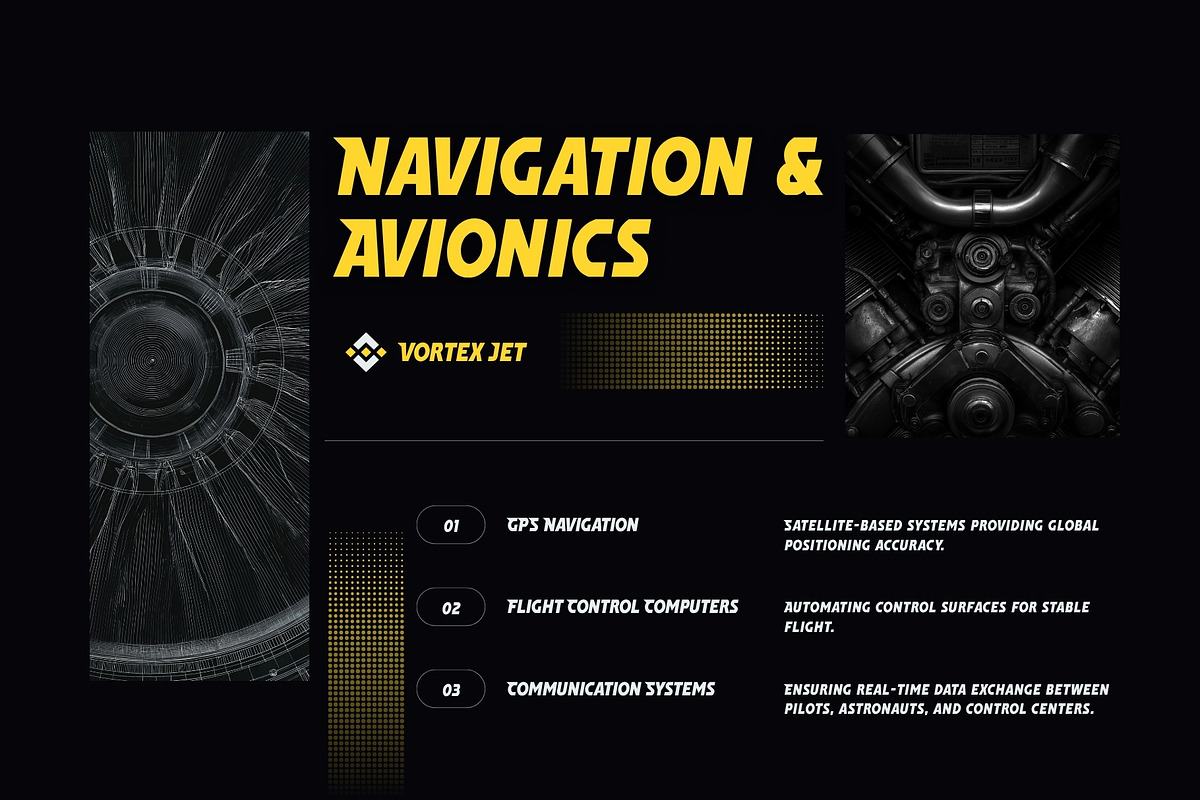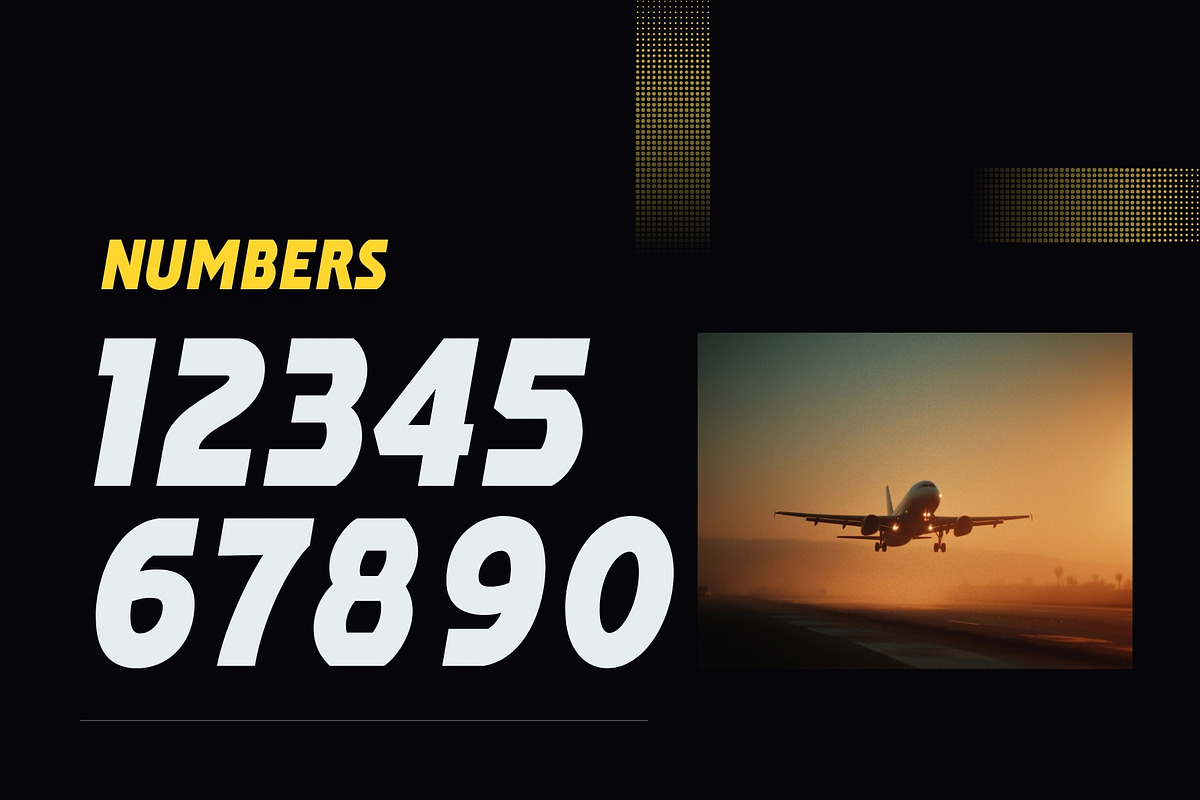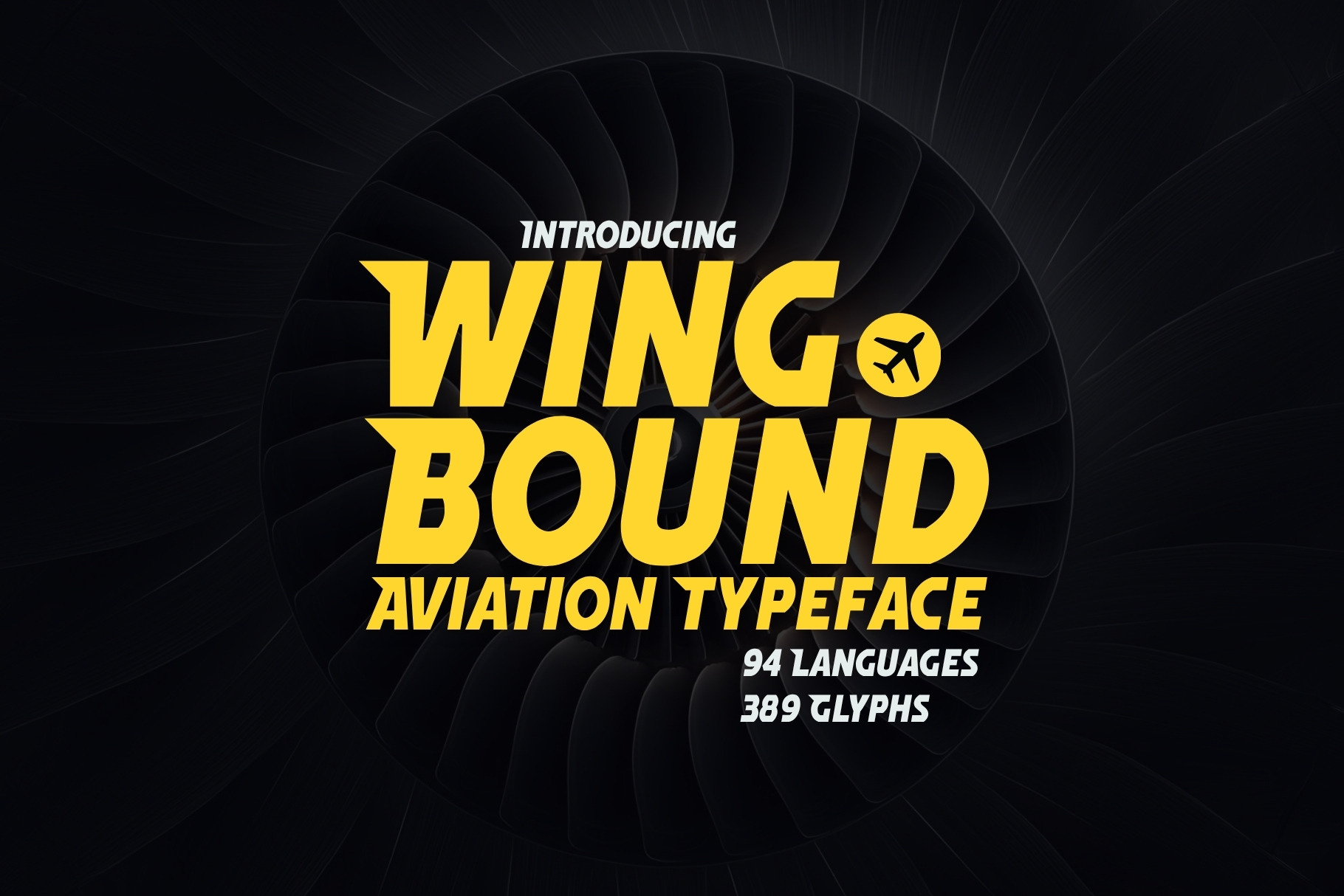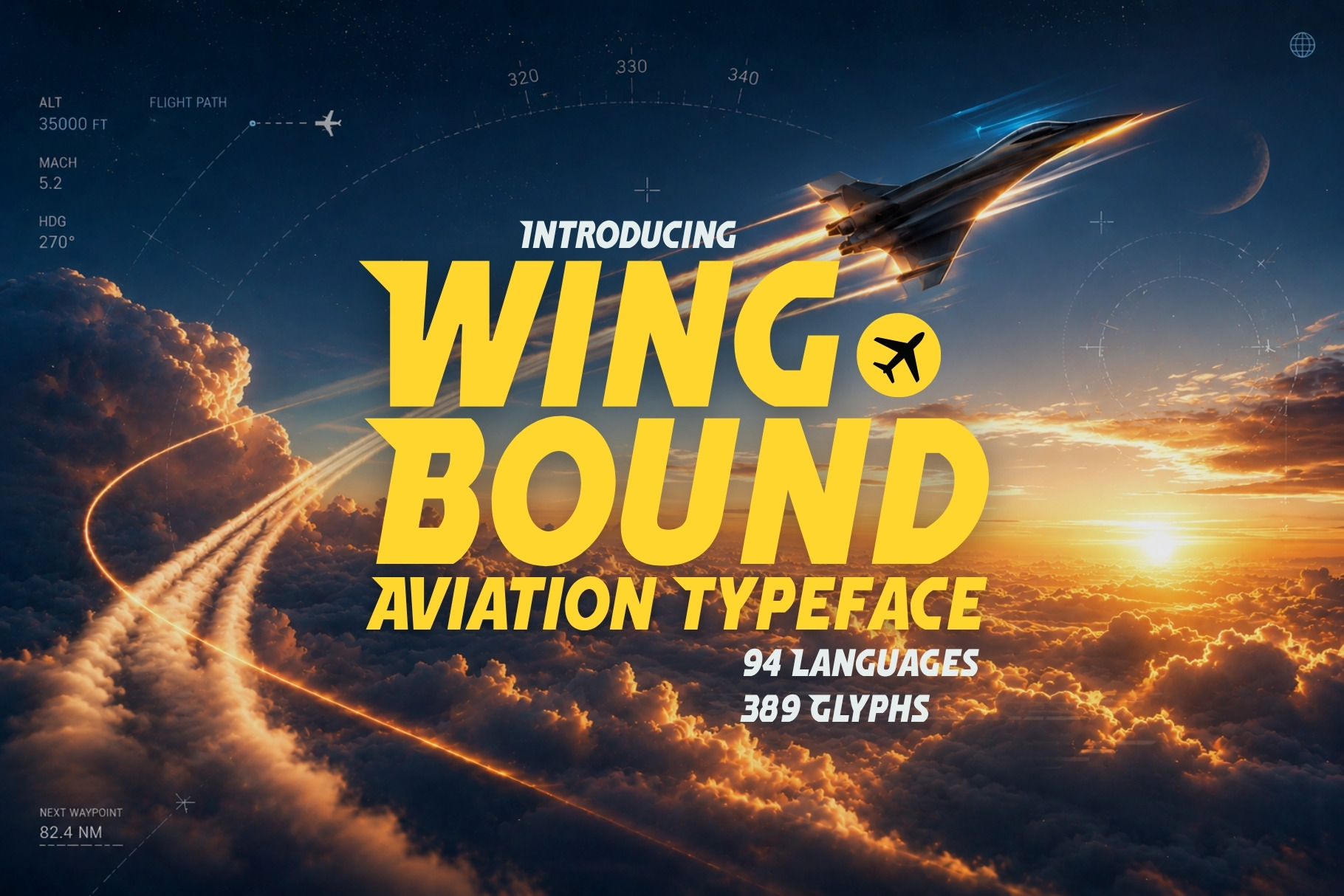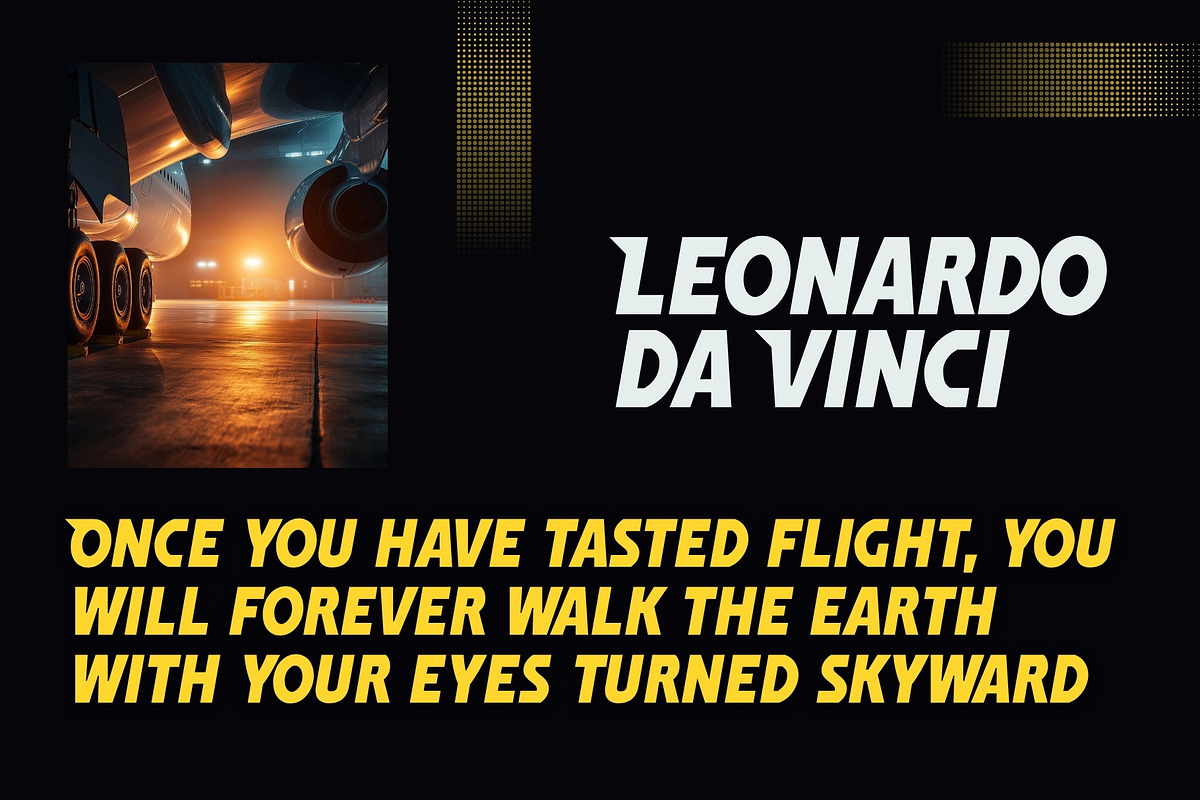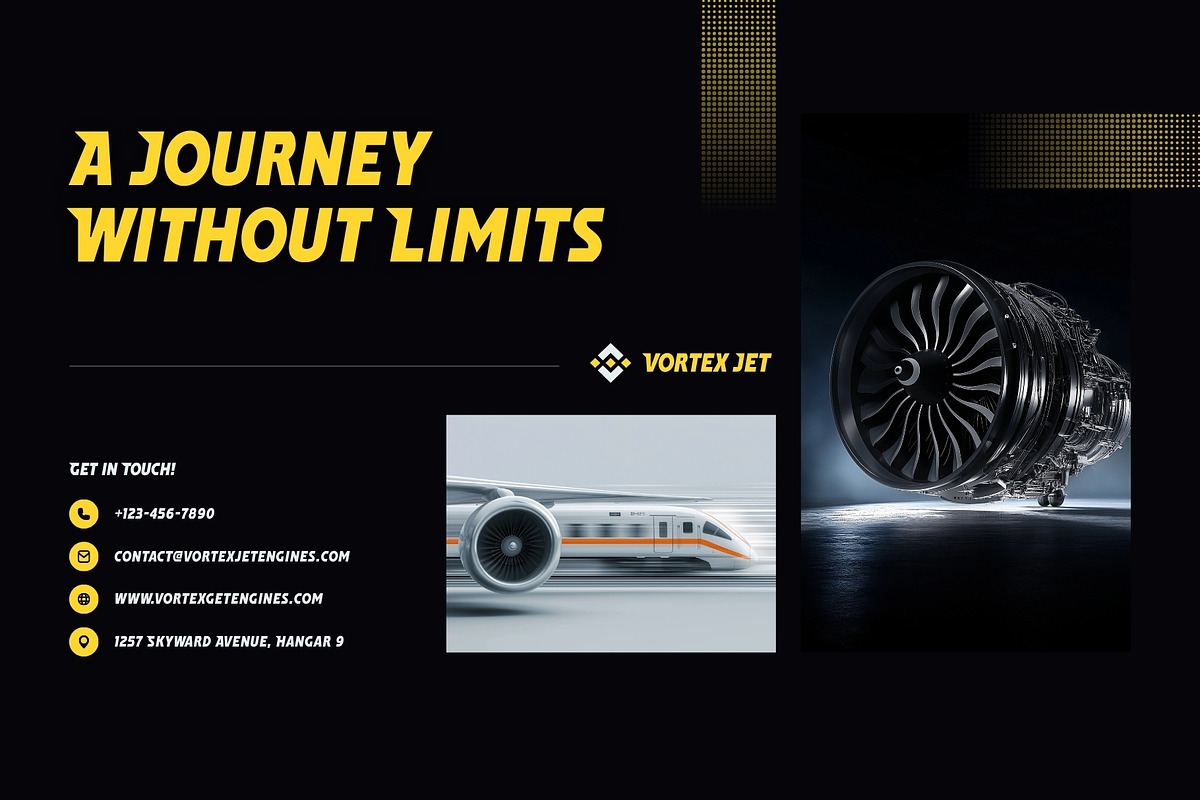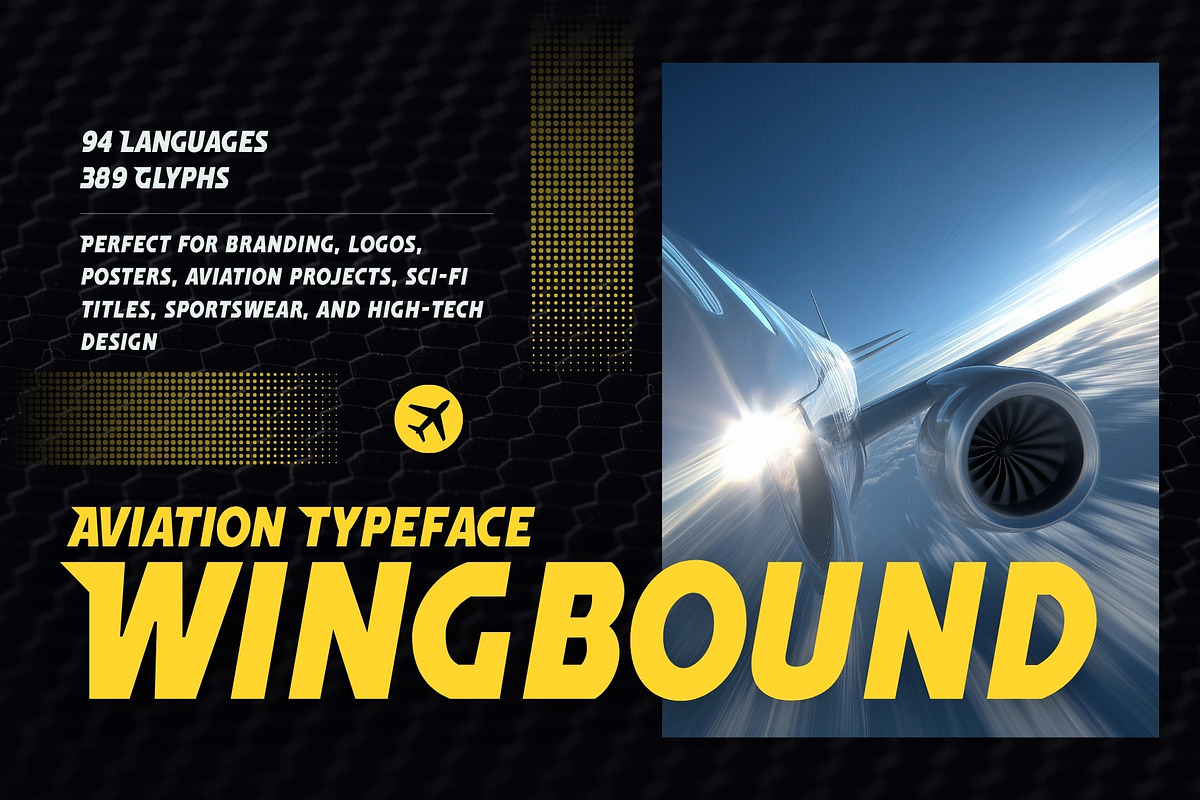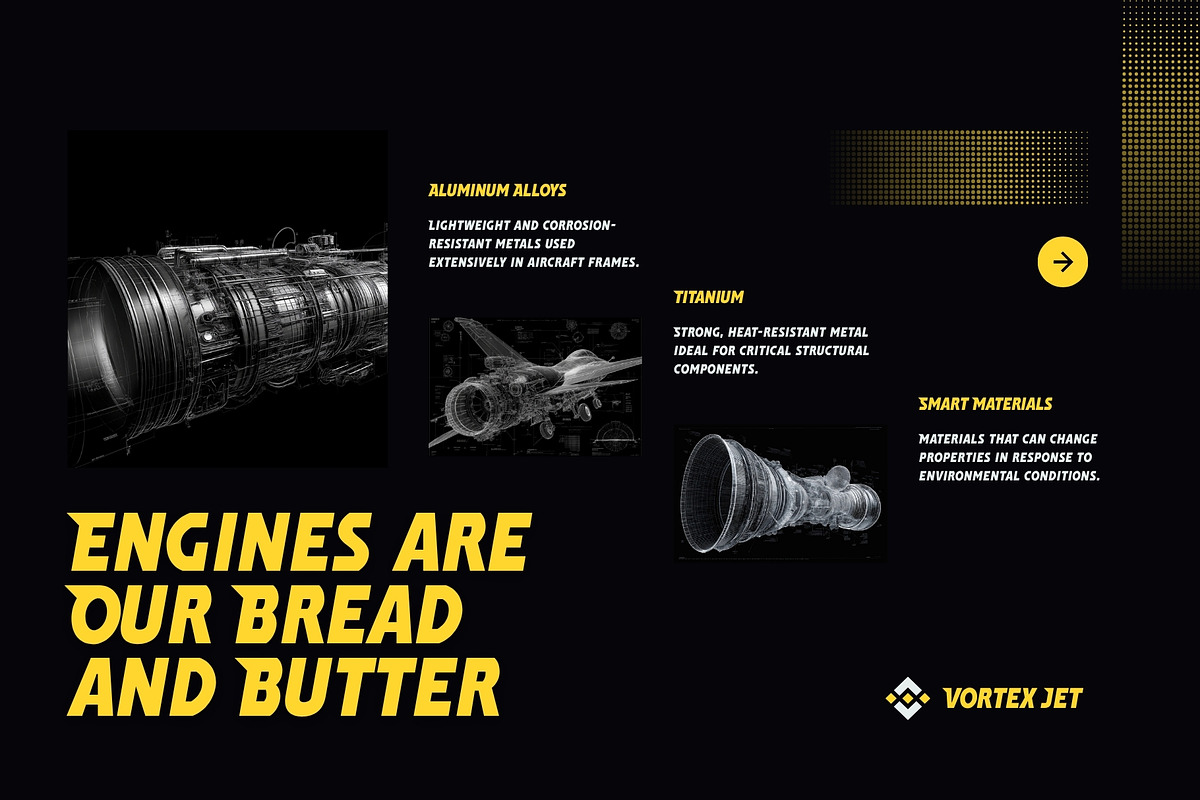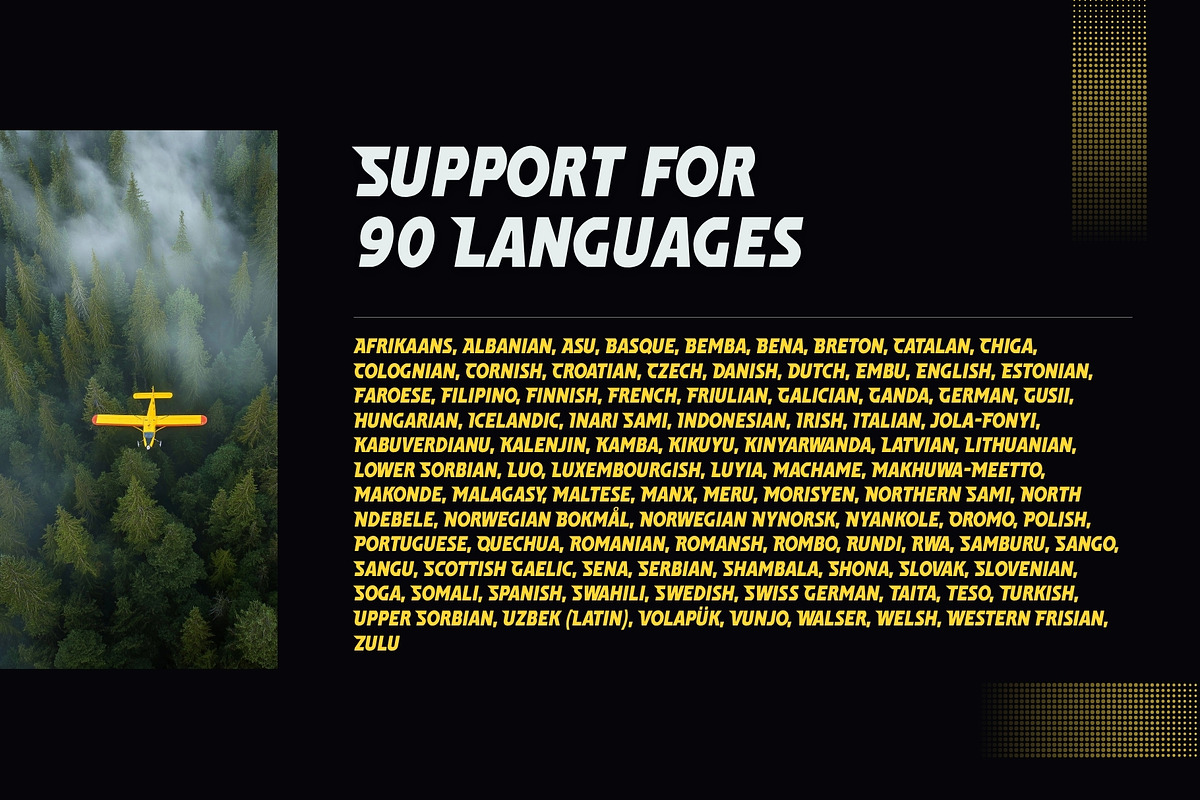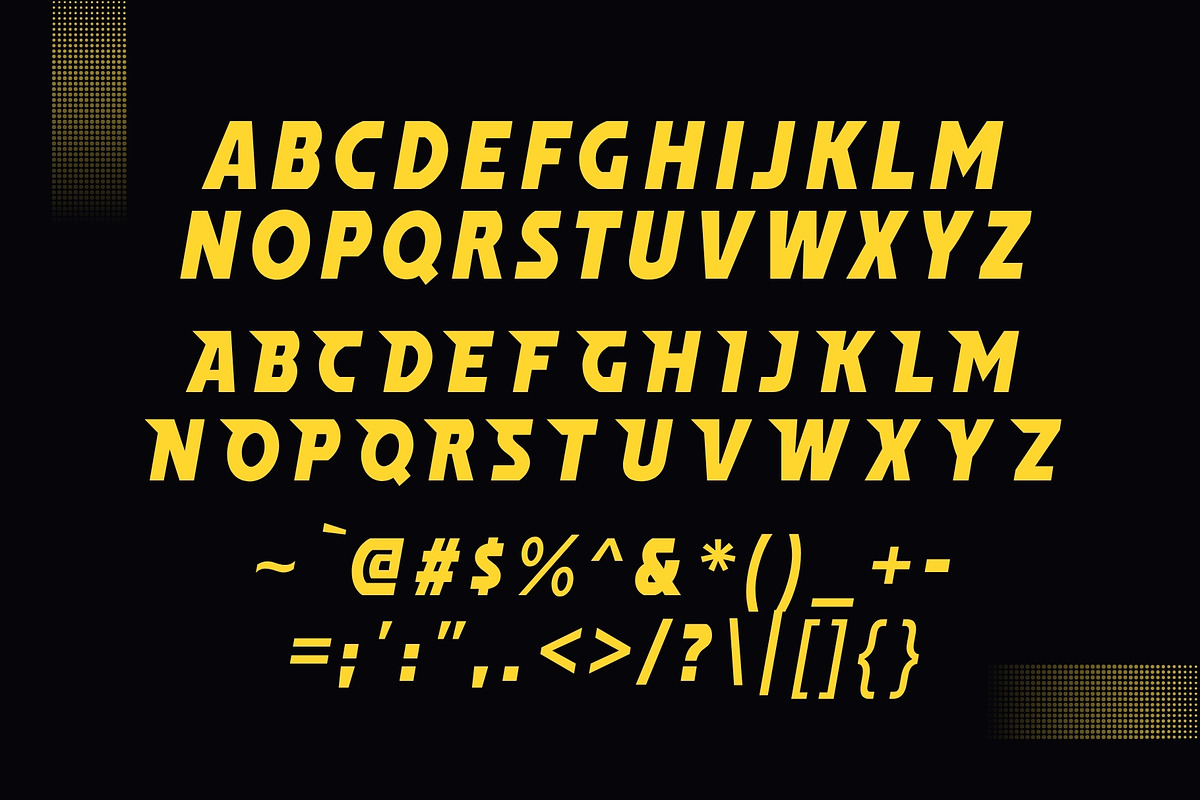
Wingbound - Aviation Typeface
Take your designs to new heights with Wingbound, a bold aviation-inspired all-caps display typeface that fuses precision engineering with aerodynamic style. Each letter is meticulously crafted to evoke the sleek motion of flight — featuring a subtle wingtip triangle on the left side that gives every word a sense of forward motion and unstoppable momentum.
Wingbound comes equipped with 389 glyphs and supports 94 languages, ensuring your message soars across borders with confidence and clarity. When typed in all caps, Wingbound unlocks its signature “speed mode” variation, transforming every letter into a visual symphony of motion, direction, and aerodynamic grace.
Perfect for branding, logos, posters, aviation projects, sci-fi titles, sportswear, and high-tech design, Wingbound embodies the essence of speed, innovation, and exploration. From cockpit dashboards to futuristic campaigns, this typeface commands attention and inspires lift-off.